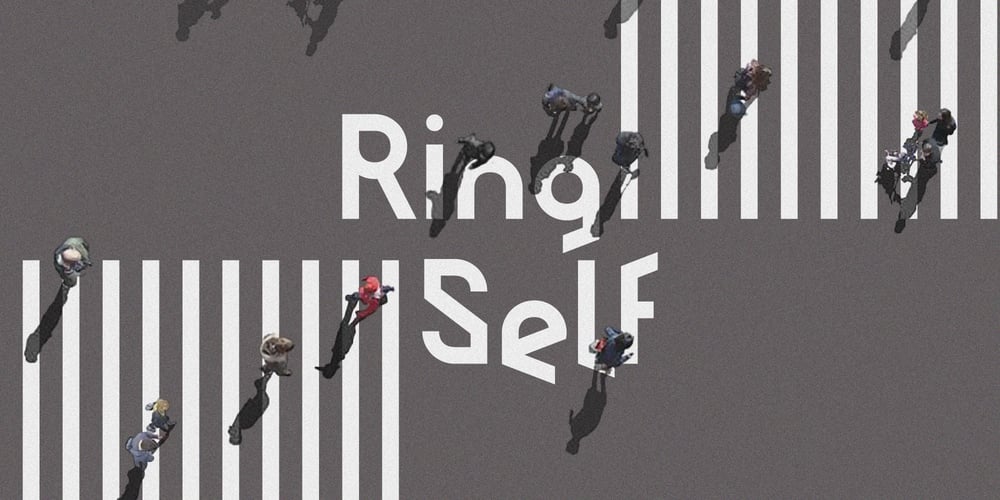
Ring Self Font Family was designed by Dmitry Ochakov and published by Ochakov. Ring Self contains 6 styles and family package options. Another Ring I did myself – Ring Self… A typographer determined to forge new routes must move, like other solitary travellers, through uninhabited country and against the grain of the land, crossing common thoroughfares in the silence before dawn. Ring Self more dynamic and alive. I’m continue to improve unique Ring family style to allow them to claim a place in type history!